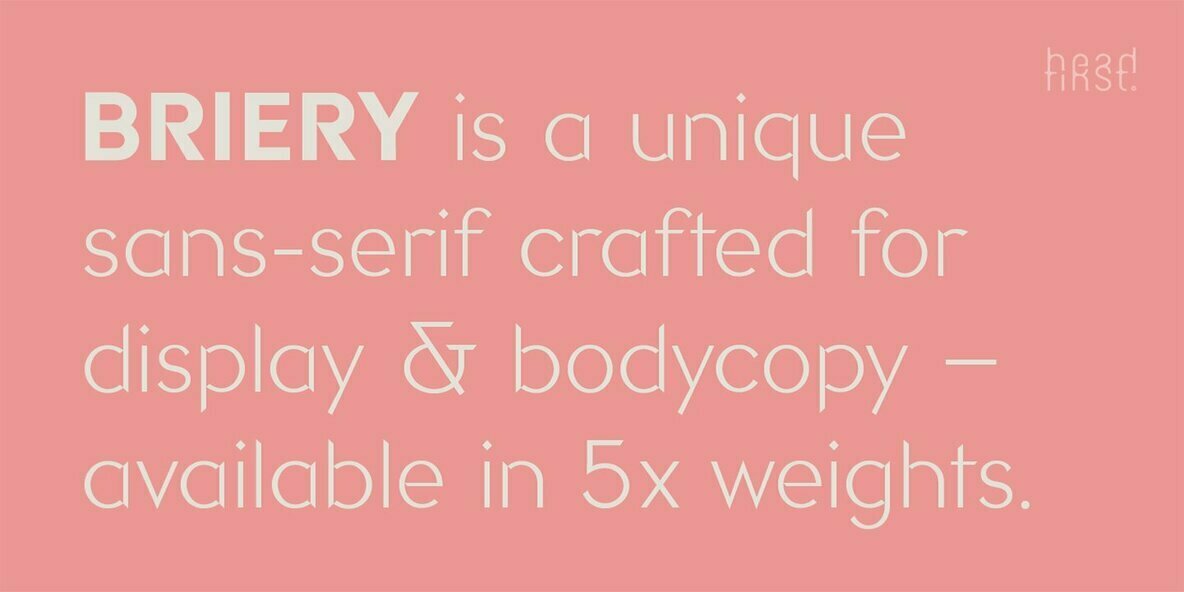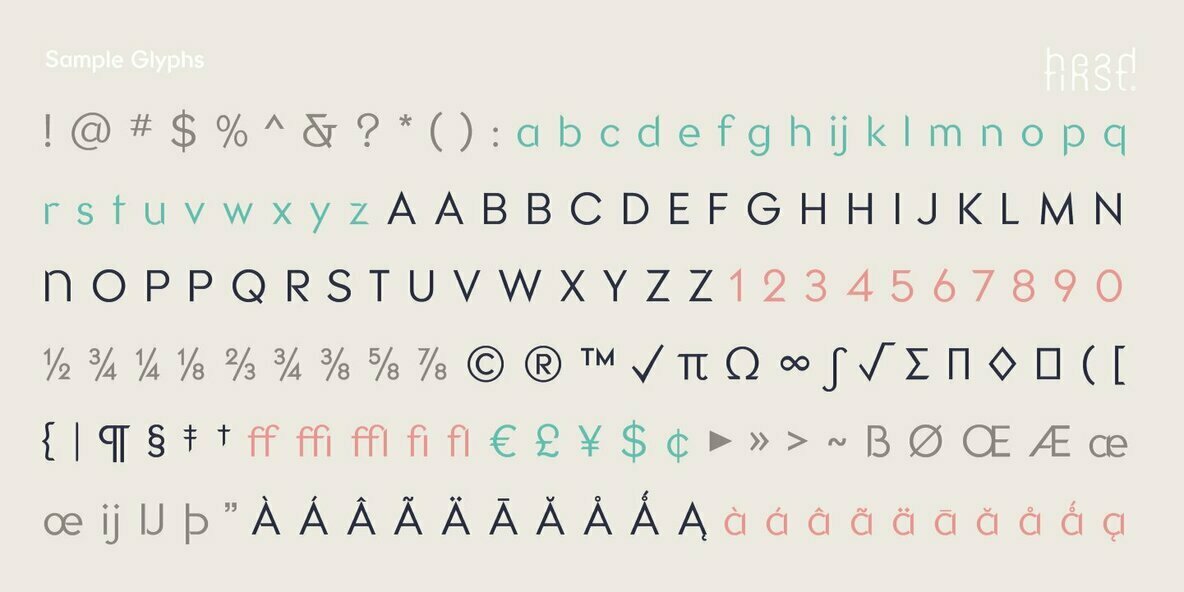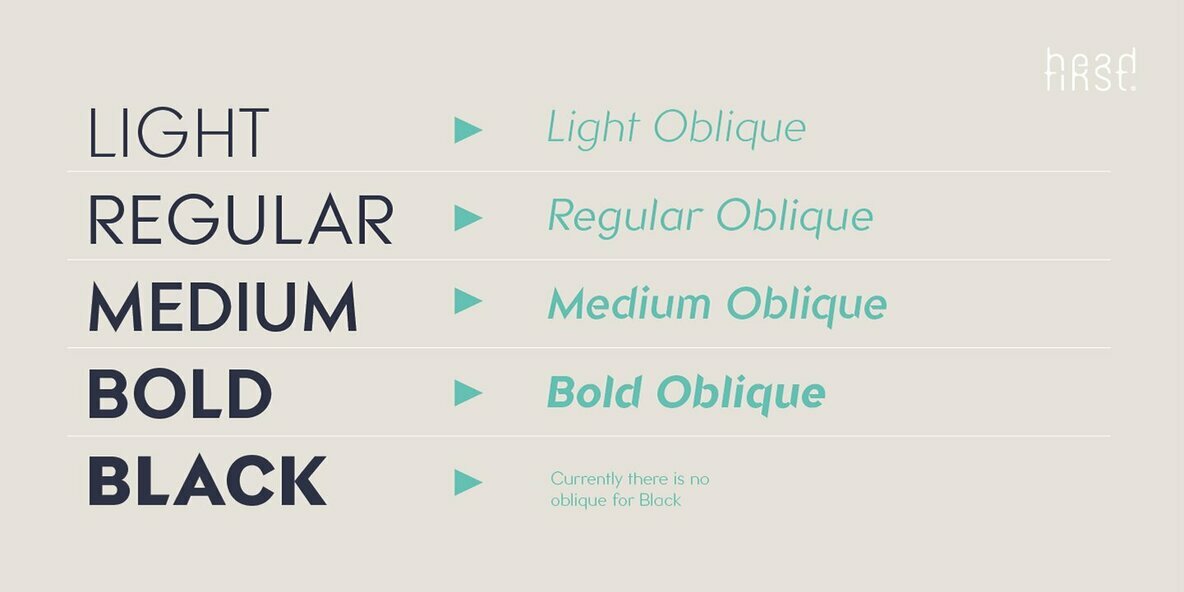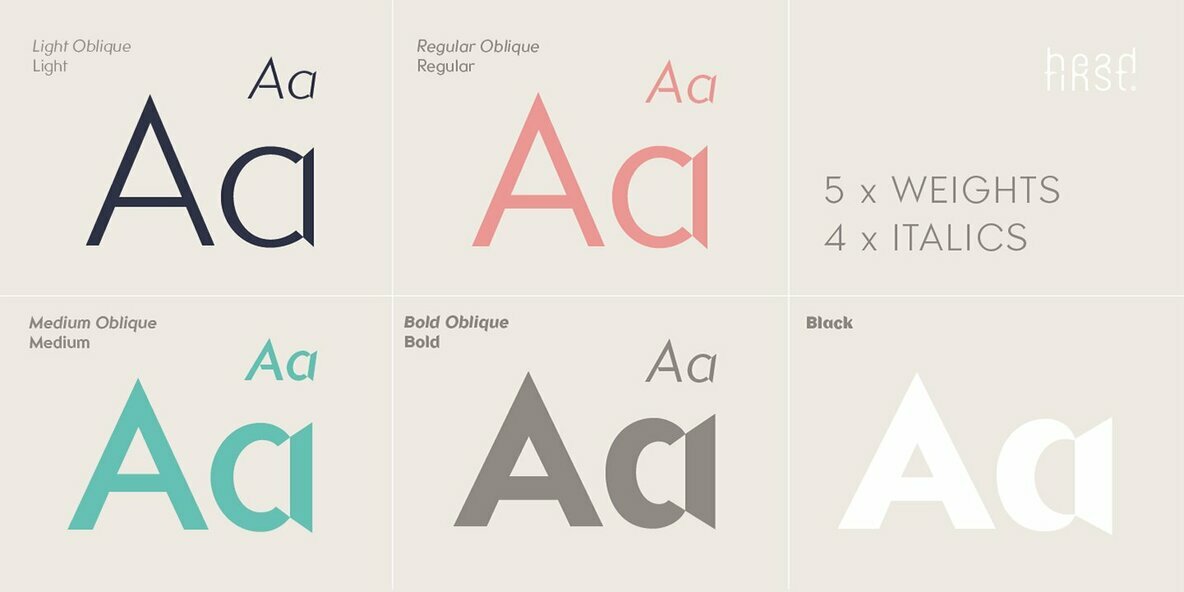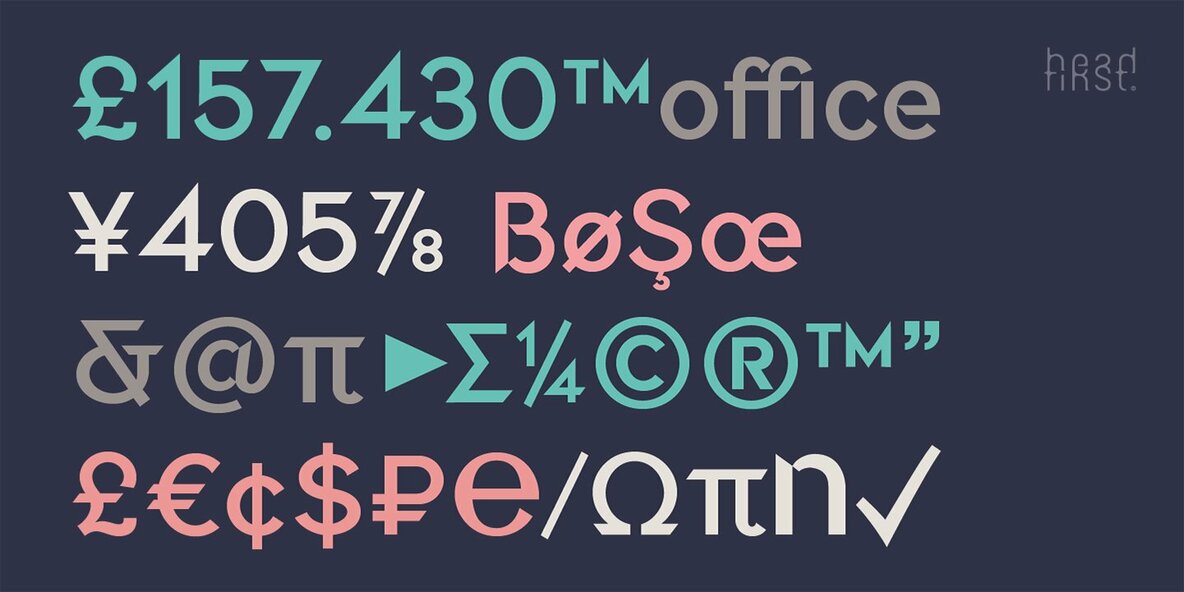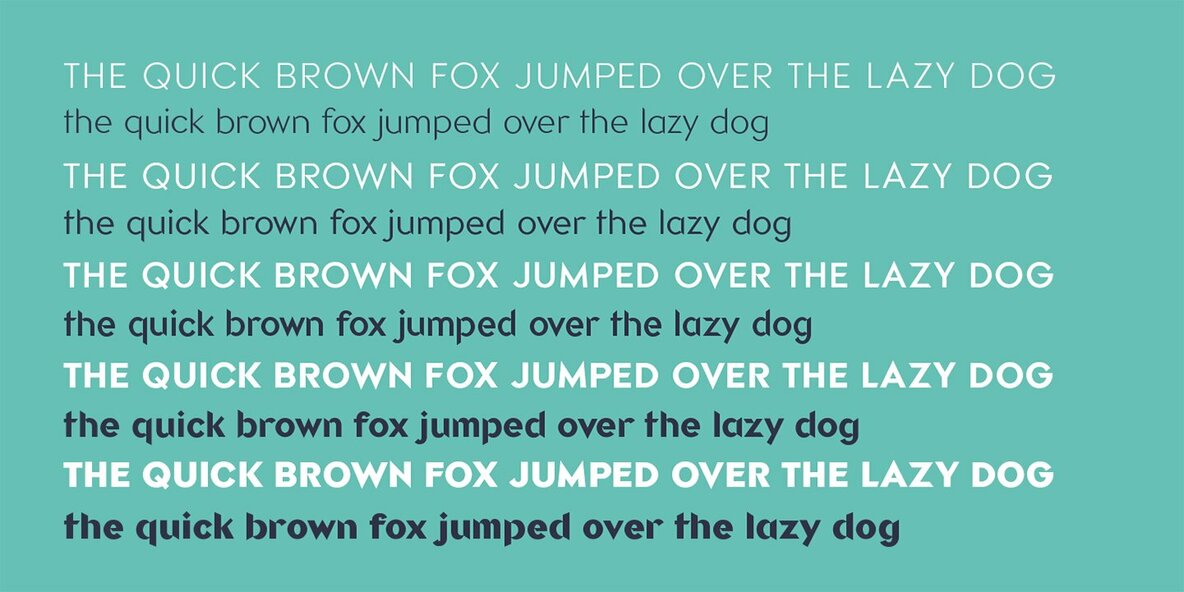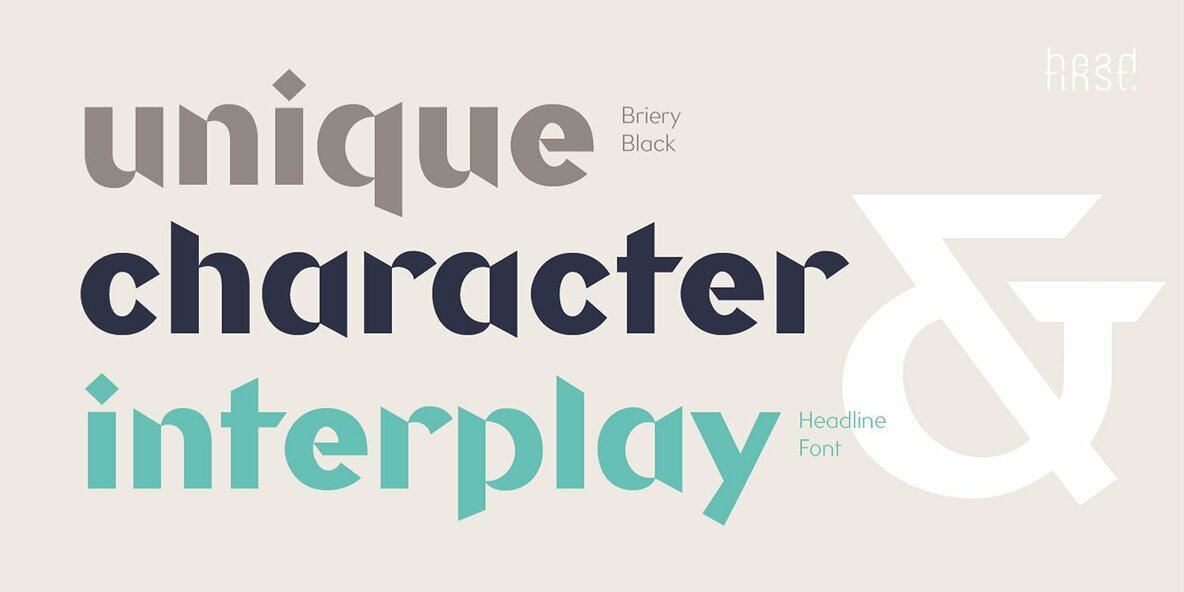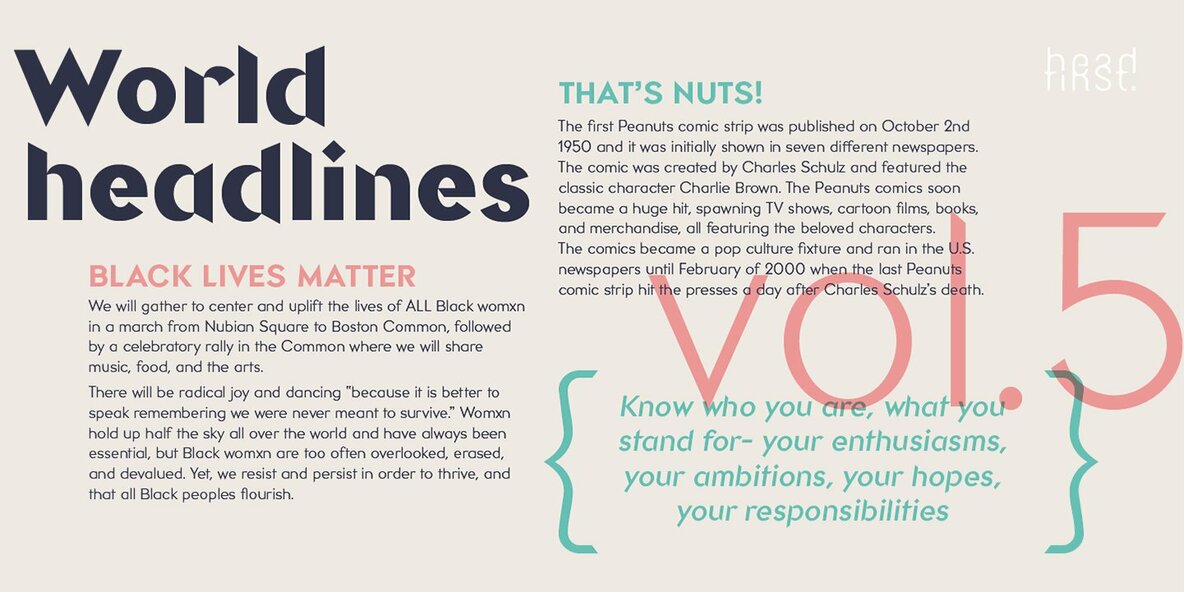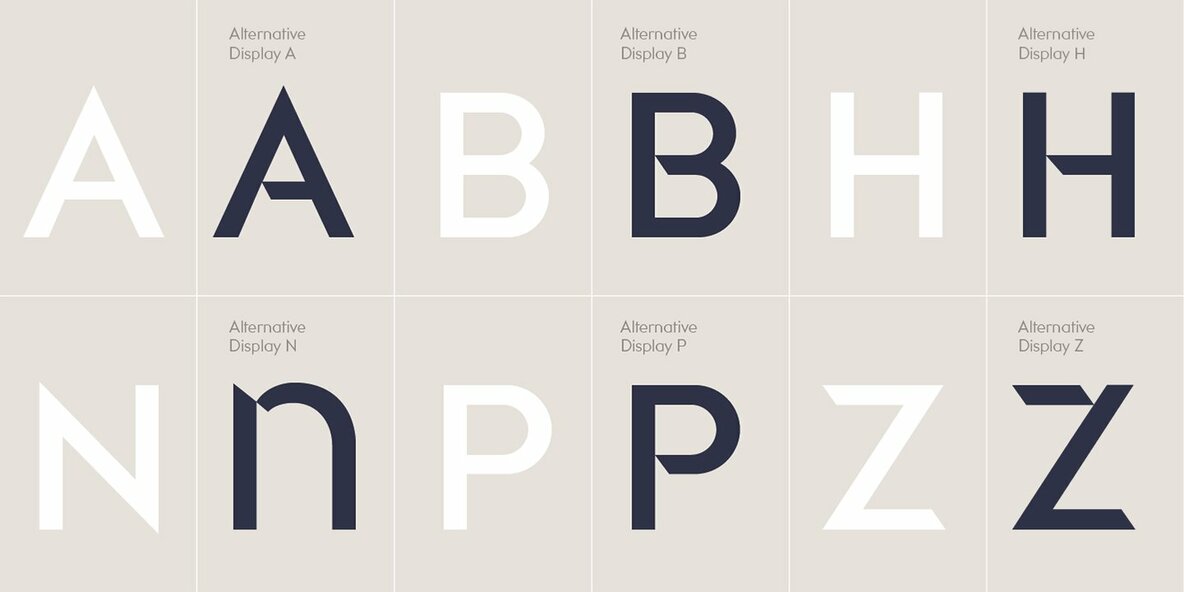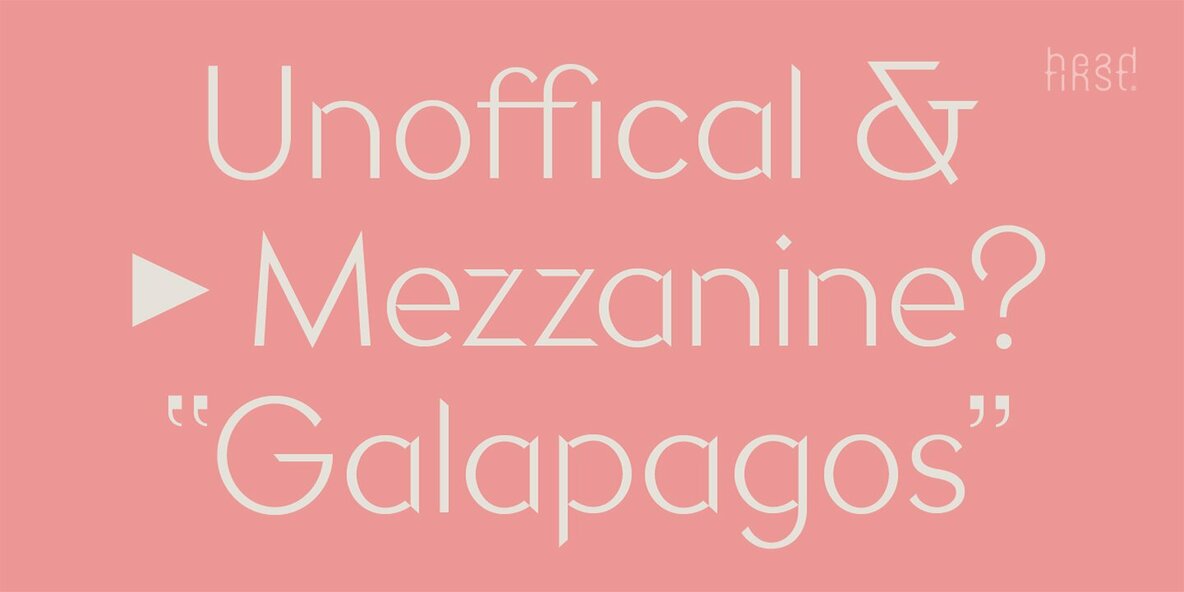
Briery Font
Briery is a unique san serif family, crafted for both display & body copy use — Available in 5x weights.
It is a blend of original & functional, with a range of alternative characters created to inspire your design imagination.
Designed by Morice Kastoun this typeface incapsulates his commitment, craft and expertise in typeface design for over 20years.